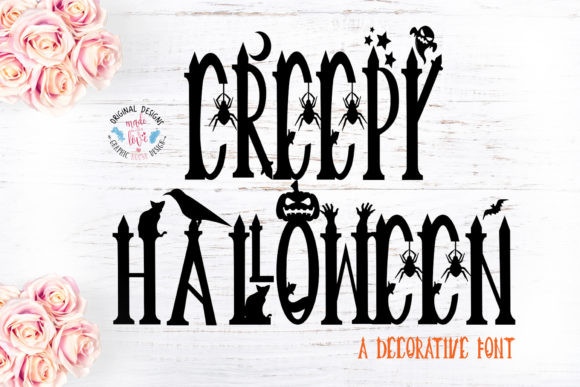
Creepy Halloween Font
This unsettling font is perfect for creepy Halloween decorations, spine-chilling horror events, eerie haunted house displays, frightening Halloween parties, disturbing seasonal signage, unsettling Halloween marketing, scary horror movie posters, bone-chilling Halloween invitations, creepy costume parties, and unnervingly atmospheric Halloween messaging materials.
Creepy Halloween Font is exciting because it masterfully captures the skin-crawling unease and spine-tingling atmosphere that defines truly effective Halloween horror through its disturbingly crafted letterforms that seem to emerge from the shadows like something that shouldn't exist. The font features unsettling, distorted characters with eerie irregularities and disturbing details that evoke the primal fear of things lurking just beyond our vision, incorporating jagged edges and unnatural flourishes that create typography as unsettling and memorable as the feeling of being watched in an empty house. Each letter showcases the carefully calculated creepiness that separates genuine scares from simple startles, with unnaturally twisted proportions and disturbing accents that make readers feel distinctly uncomfortable while remaining irresistibly drawn to look closer. The design perfectly embodies the essence of creepiness - that slow-building sense of wrongness that makes Halloween the most deliciously frightening night of the year.
The Creepy Halloween Font family includes disturbing style variations: Regular, Bold, Light, Twisted, and Haunting versions. The collection features special creepy elements including skeletal accents, shadow effects, distorted flourishes, and unnervingly organic ornaments. Additional components include eerie borders, disturbing frames, unsettling decorations, and bone-chilling ornamental designs that enhance the font's creepy Halloween appeal and create cohesive spine-tingling horror themes.
Horror enthusiasts and professional scare creators will find Creepy Halloween Font Free Download to be an essential tool for creating genuinely unsettling Halloween communications that deliver authentic chills and lasting unease. This disturbingly crafted font transforms ordinary Halloween messaging into instruments of genuine creepiness that burrow into viewers' minds and create the kind of lasting discomfort that makes truly effective Halloween experiences so memorably frightening.
The typeface includes comprehensive character support with creepy styling that maintains excellent readability while conveying the deep unease and disturbing atmosphere of genuinely creepy Halloween celebrations. The font's unsettling design ensures spine-chilling results across both amateur horror applications and professional frightening Halloween productions.
Perfect for haunted attractions, horror events, creepy Halloween celebrations, and genuinely frightening seasonal marketing, this font delivers bone-chilling visual impact that communicates authentic creepiness, lasting unease, and the disturbing atmosphere that makes creepy Halloween experiences so deliciously terrifying and unforgettably frightening.